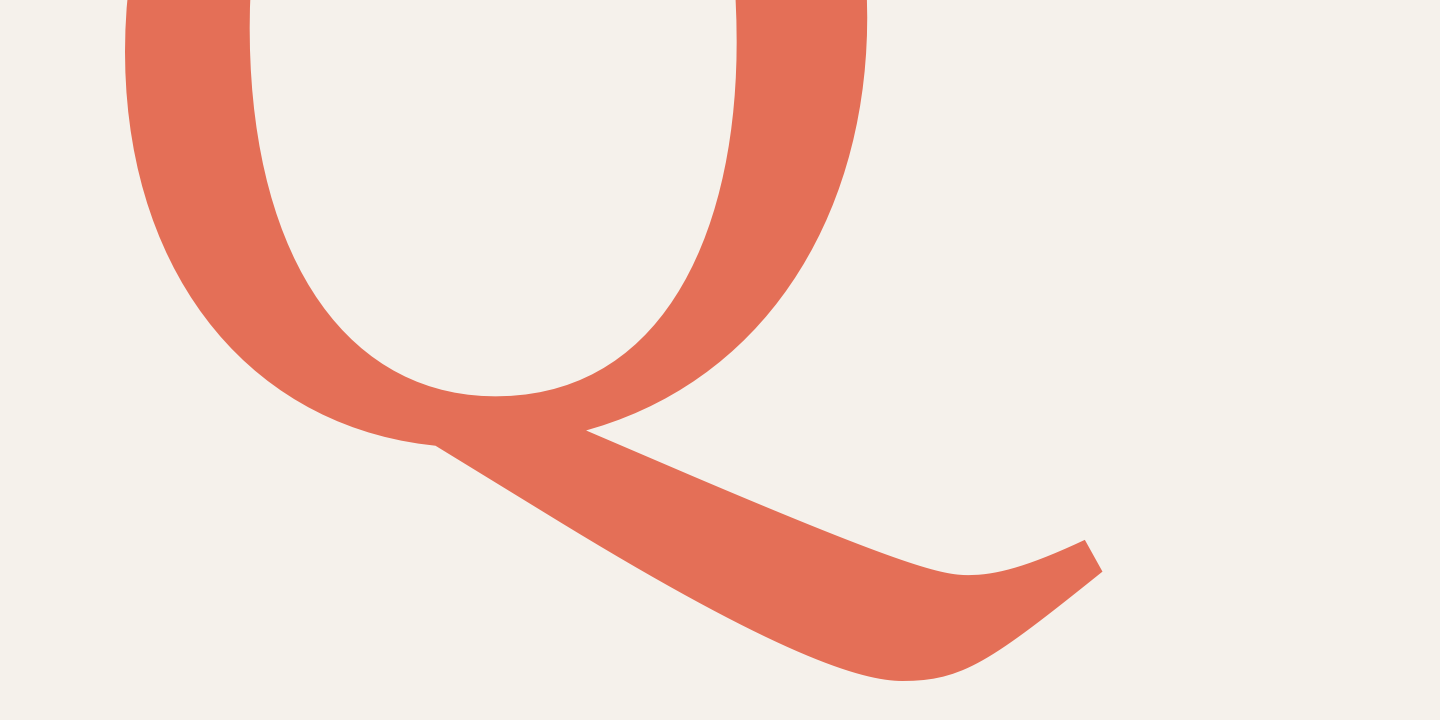
Swift Font is perfect for newspaper publishing, magazine layouts, digital news platforms, editorial design, corporate communications, business reports, professional documentation, newsletter design, contemporary publishing, and media applications that require exceptional readability and efficient space utilization in high-volume text environments.
What makes Swift Font truly exciting is its revolutionary design approach that maximizes reading efficiency while minimizing space requirements without sacrificing aesthetic appeal. This exceptional typeface combines compact letterforms with enhanced legibility features, incorporating innovative spacing and proportion techniques that allow more content per page while maintaining superior reading comfort. The font's economic efficiency and editorial excellence make it perfect for publications and organizations seeking to optimize information delivery while maintaining professional presentation standards.
The Swift Font family includes comprehensive weights and styles: Regular, Italic, Bold, Bold Italic, and Condensed variations designed for optimal editorial performance. Each family member maintains the distinctive space-efficient character while offering complete flexibility for complex publication layouts and information hierarchies. The extensive character set supports multiple languages and newspaper typography conventions, making it suitable for international media applications.